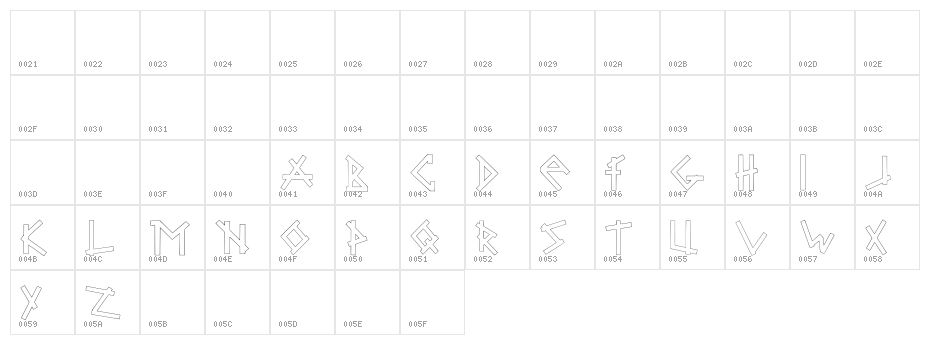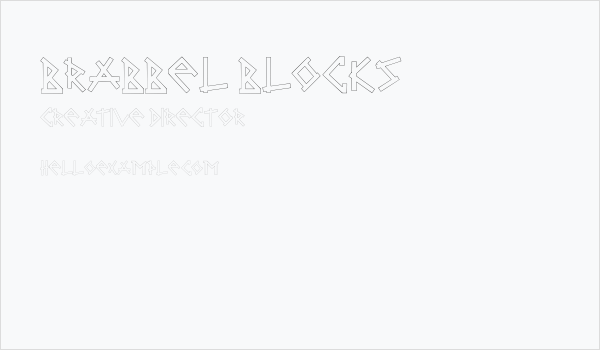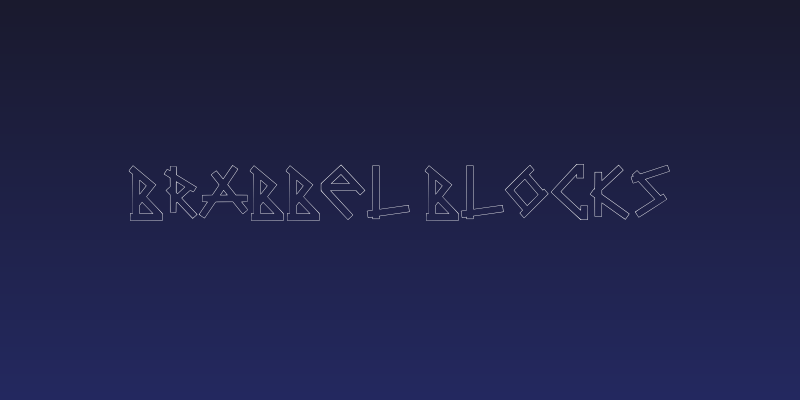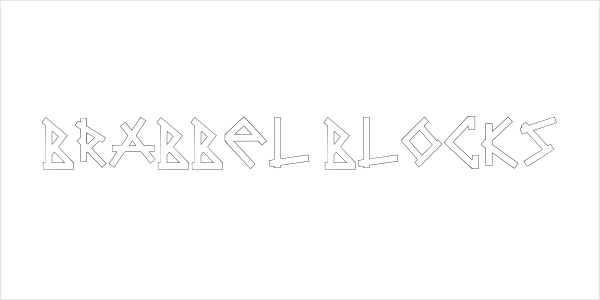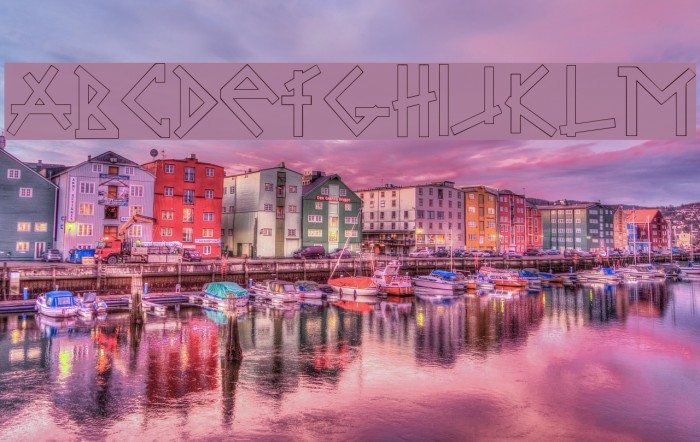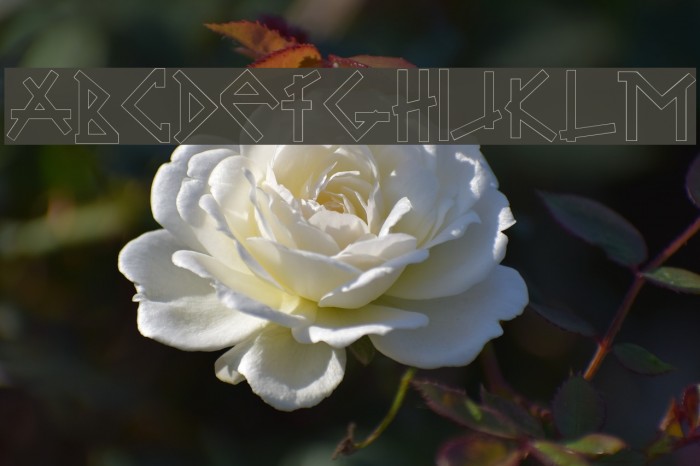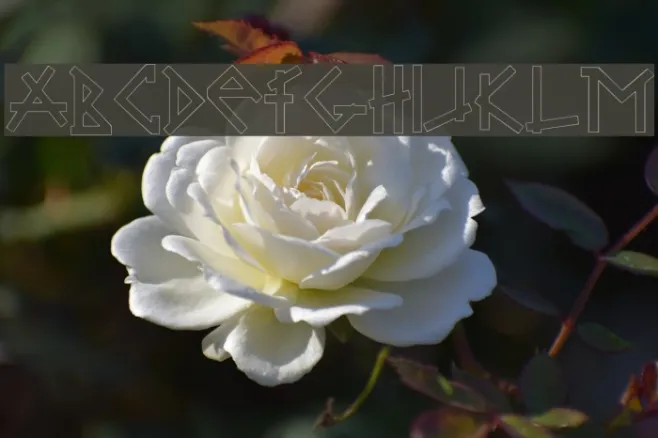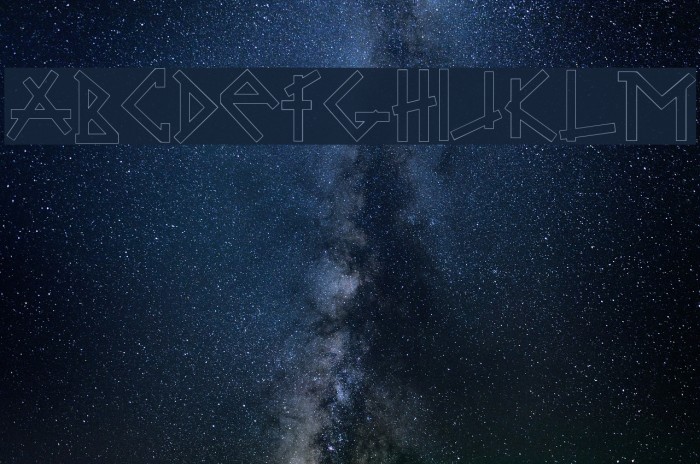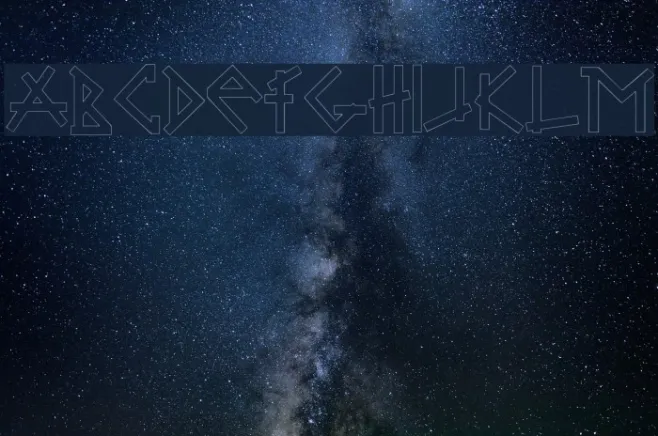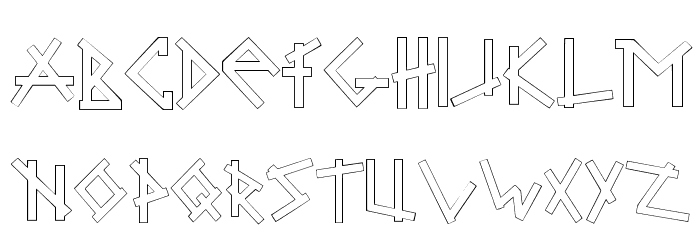
Brabbel Blocks Font
Brabbel Blocks Description
This font features a unique, geometric design with a blocky and angular appearance. Each letter is constructed with sharp lines and edges, giving it a futuristic and mechanical feel. The uppercase and lowercase letters maintain a consistent style, emphasizing bold, straight lines and right angles. The font's structure is reminiscent of architectural blueprints or digital displays, making it stand out with its distinct and modern aesthetic. The characters are evenly spaced, providing a balanced and cohesive look across all text. This font is ideal for projects that require a strong visual impact and a contemporary edge.